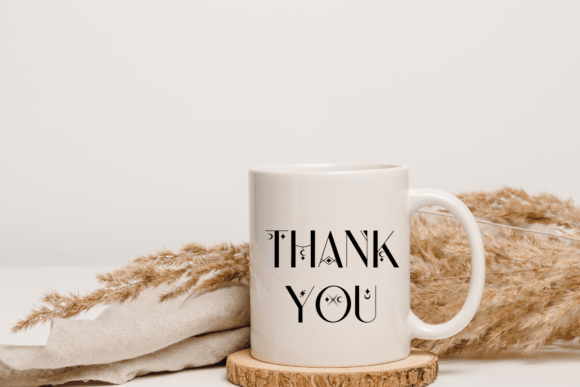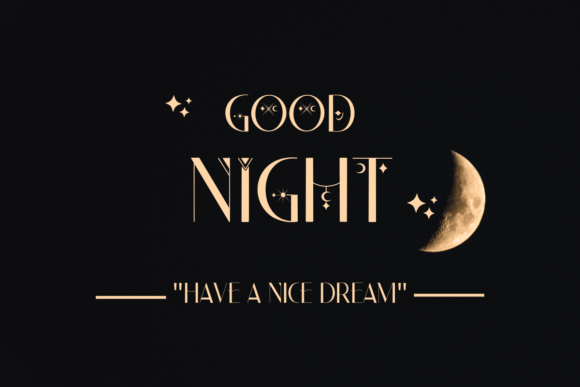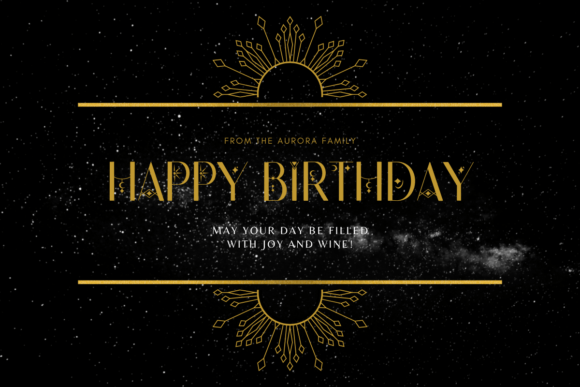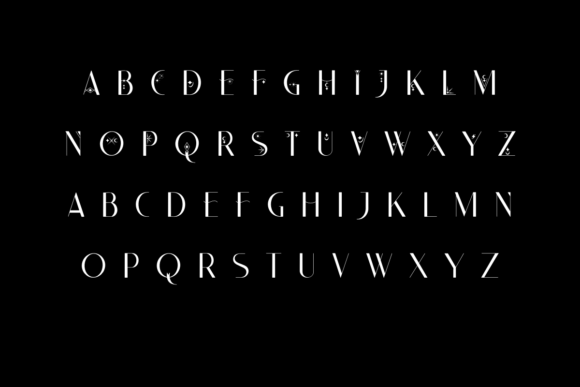
Introduction to Mystic Font
Mystic is a decorative font with stars, moons, and other magical symbols around each letter.
It’s perfect for adding a touch of enchantment to your text .
Key Features of Mystic Font
Why Choose Mystic Font?